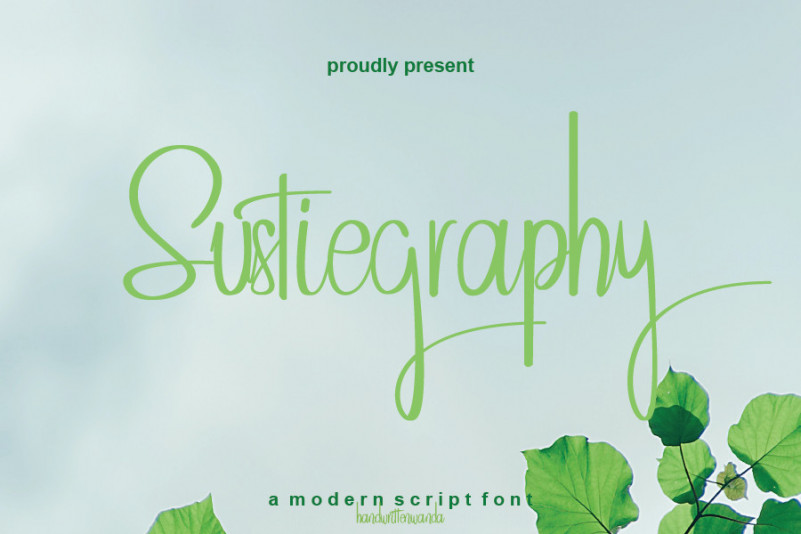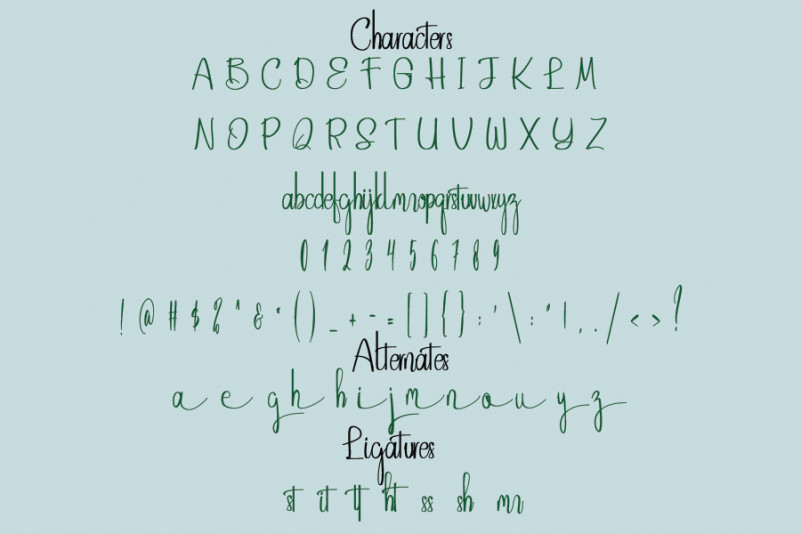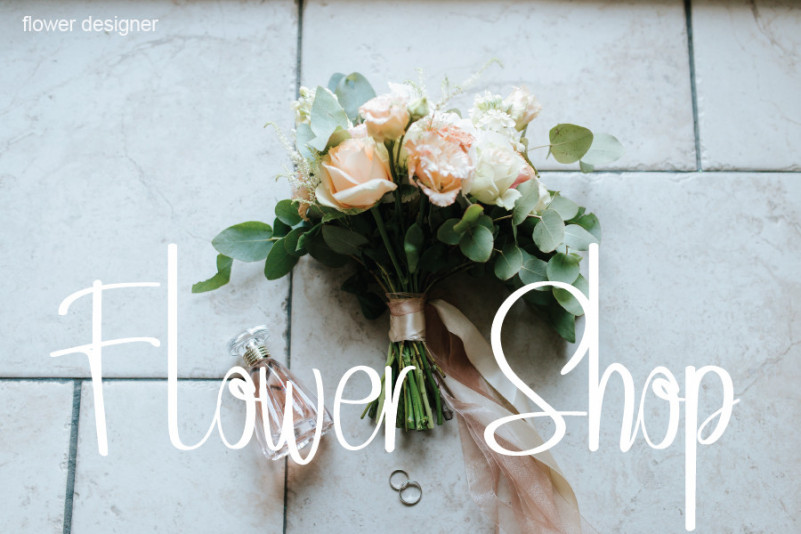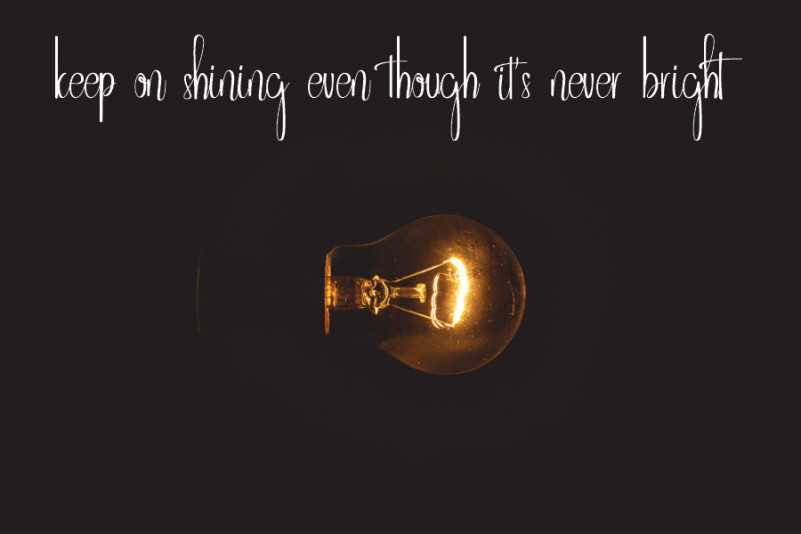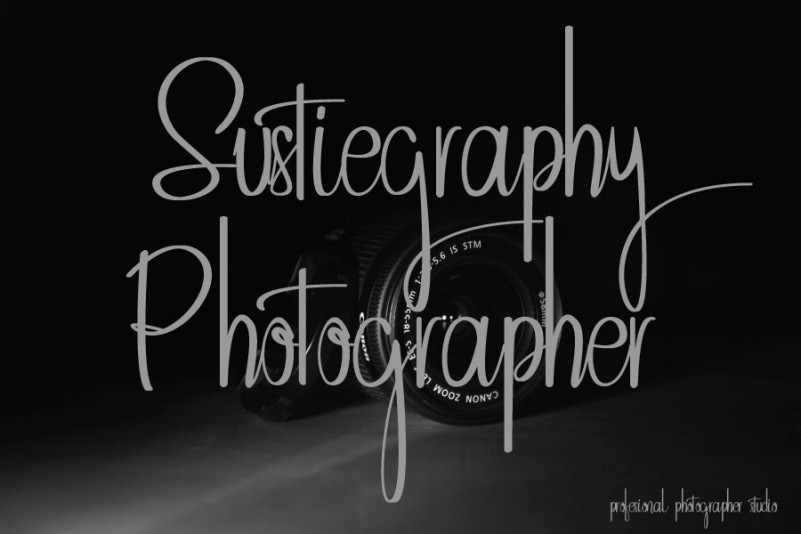
Sustiegraphy Font
Sustiegraphy Script Font
This font is a well balanced, refined script font that emanates sophistication and elegance. Its stylish alternates and ligatures make this font the perfect match for any project.